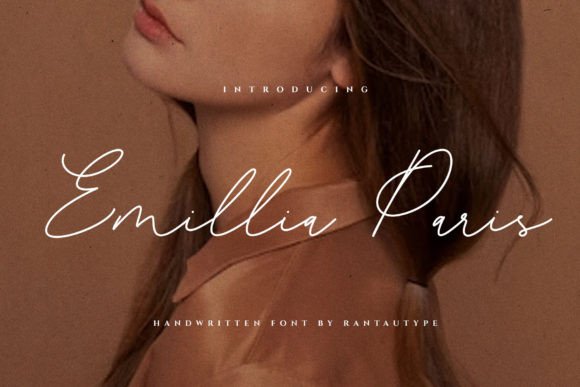
Are you seeking a font that embodies elegance, creativity, and effortless charm? Look no further than Emillia Paris, the captivating handwritten font that will transform your designs into works of art. Inspired by the allure of Parisian charm and the timeless beauty of calligraphy, Emillia Paris is meticulously crafted to evoke a sense of sophistication and romance.
Journey into a world of limitless possibilities with Emillia Paris, where your imagination takes center stage. Whether you're designing movie posters, logos, invitations, or social media graphics, this font will effortlessly elevate your projects to new heights. Its graceful curves, delicate strokes, and enchanting ligatures dance together harmoniously, creating a visual symphony that captivates the senses.
With Emillia Paris as your creative companion, you'll effortlessly craft designs that exude both elegance and playfulness. Its versatility knows no bounds, effortlessly adapting to a multitude of design styles, from classic and timeless to modern and whimsical. Unleash your creativity and let Emillia Paris guide you towards design greatness.
Experience the allure of Emillia Paris today and embark on a creative journey like never before. Let your designs blossom with a touch of Parisian charm and handwritten elegance. As you witness your projects transform before your eyes, you'll realize that Emillia Paris is more than just a font; it's an artistic masterpiece that will leave an enduring impression on all who behold it.